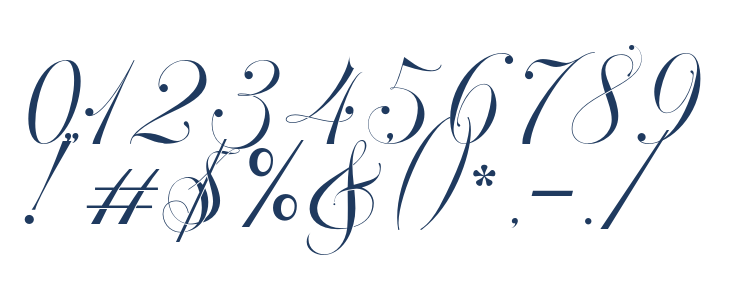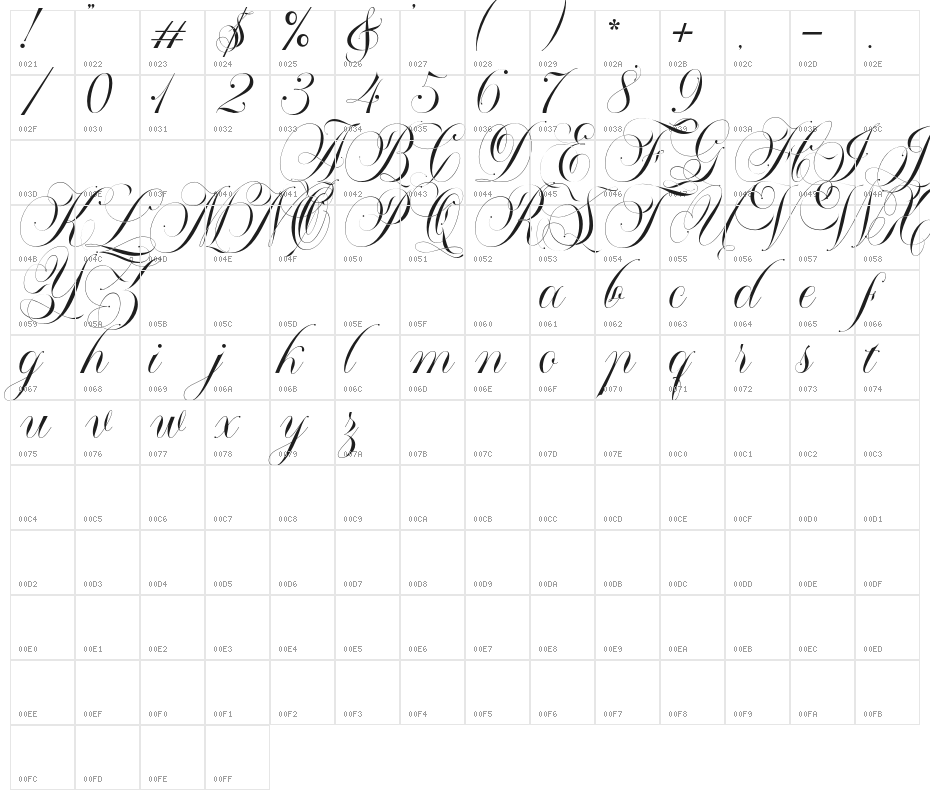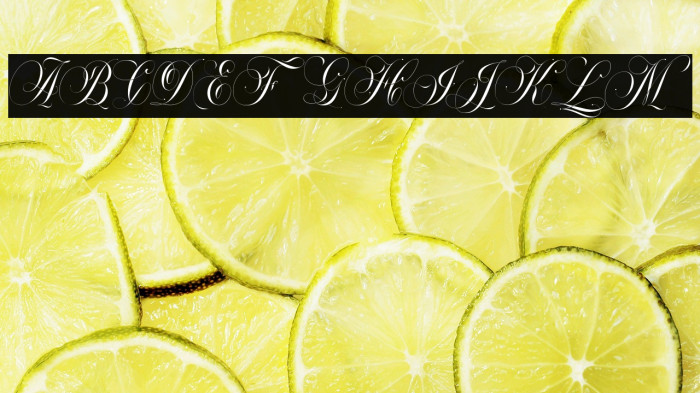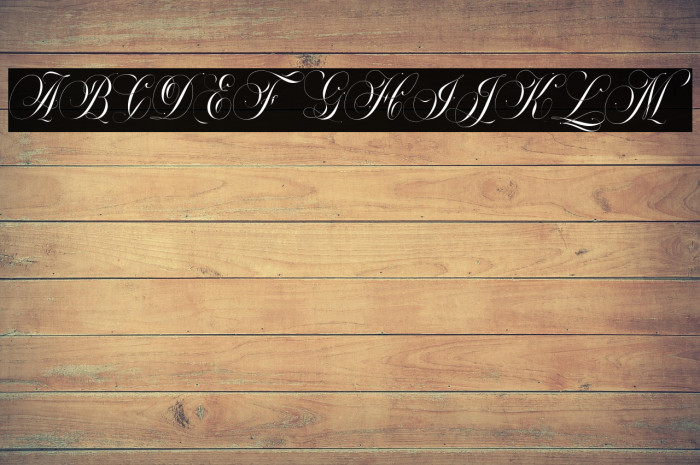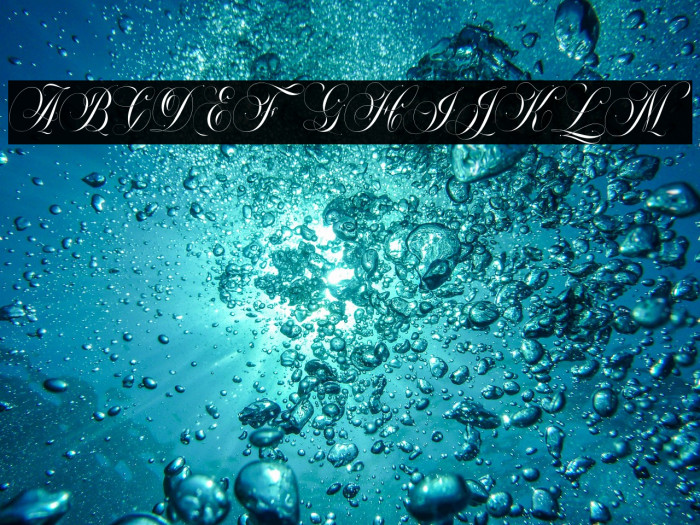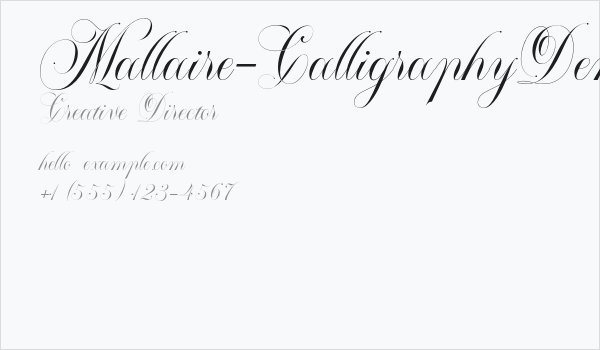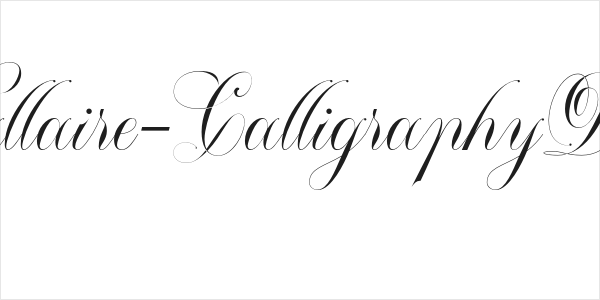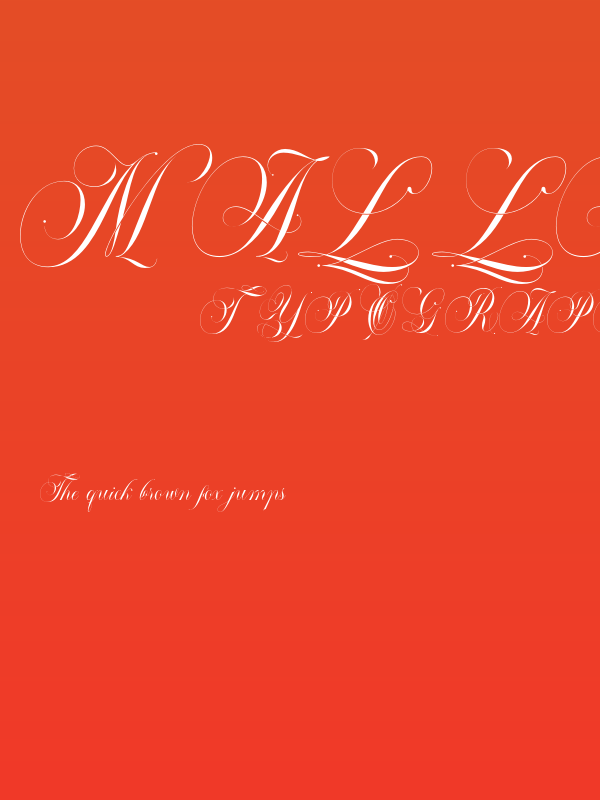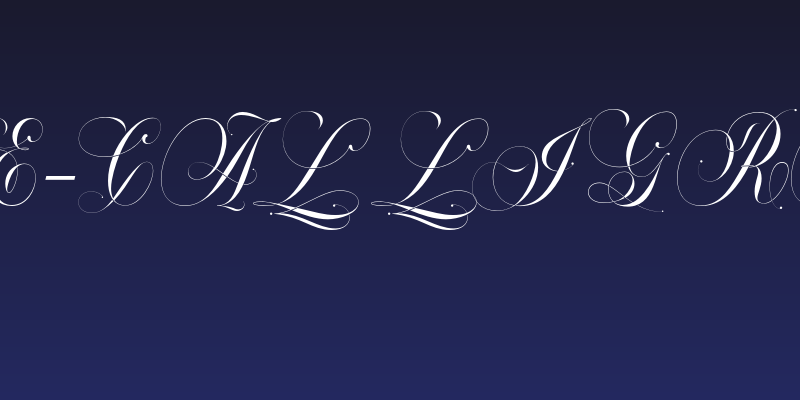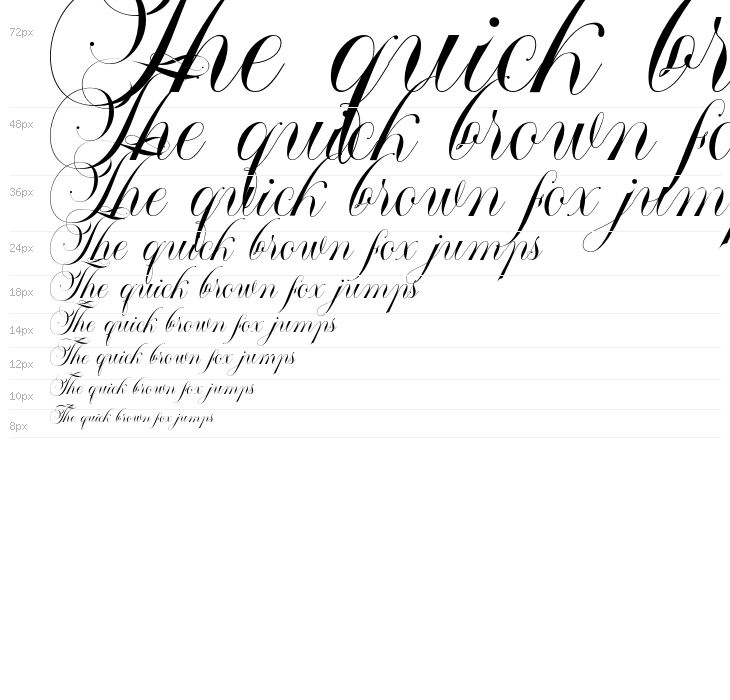
Mallaire-CalligraphyDemo Font
Mallaire-CalligraphyDemo Description
This elegant calligraphy font features flowing, interconnected strokes that exude sophistication and grace. The uppercase letters are adorned with intricate flourishes, while the lowercase characters maintain a smooth, cursive style. The numerals and special characters are crafted with the same attention to detail, ensuring a cohesive look throughout. The font's high contrast between thick and thin strokes adds to its dramatic appearance, making it ideal for formal invitations, branding, and decorative purposes. Its artistic flair and refined style make it a standout choice for projects that require a touch of elegance.
| Proposed Projects | Ideal for wedding invitations, luxury branding, elegant stationery, and decorative headlines. |